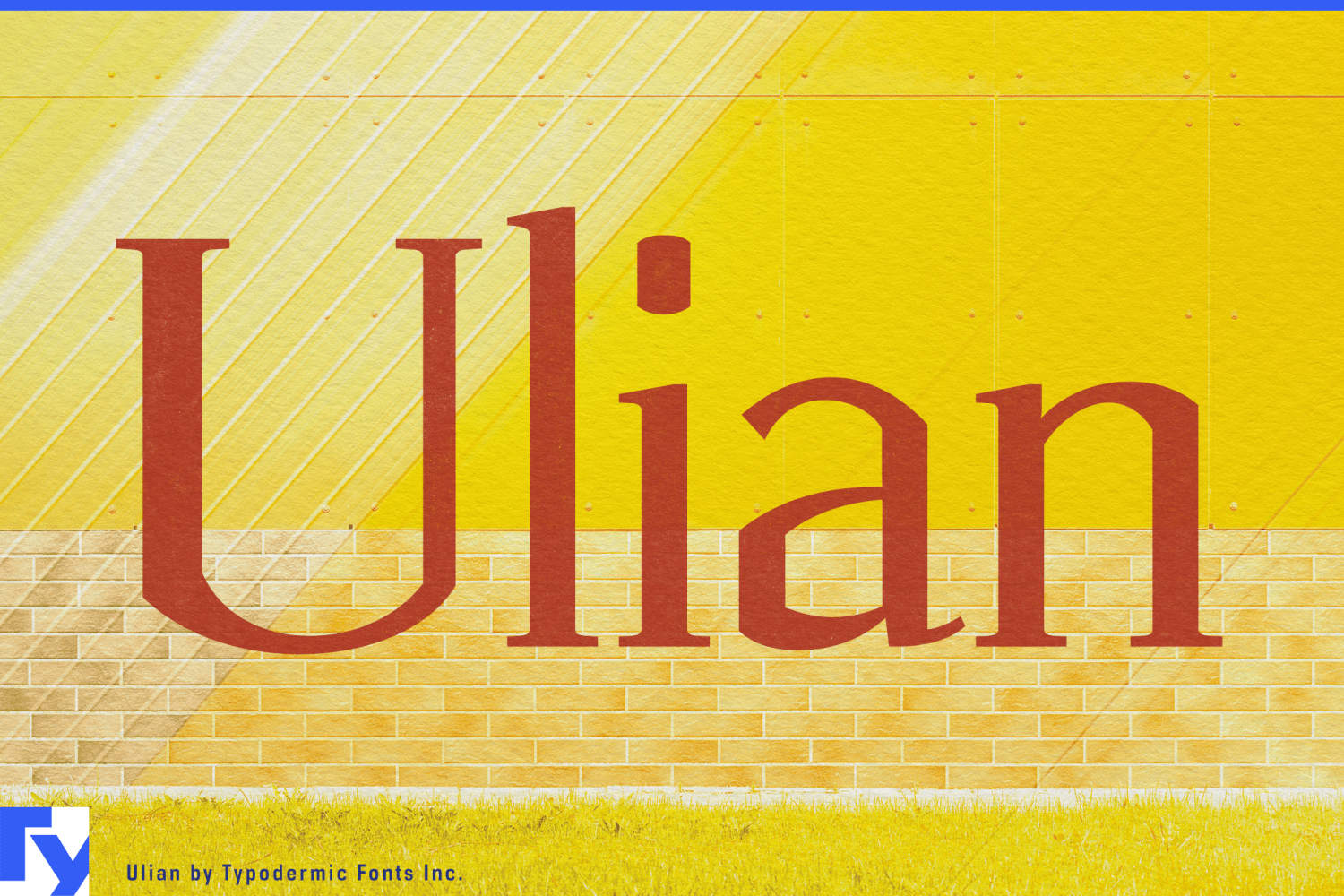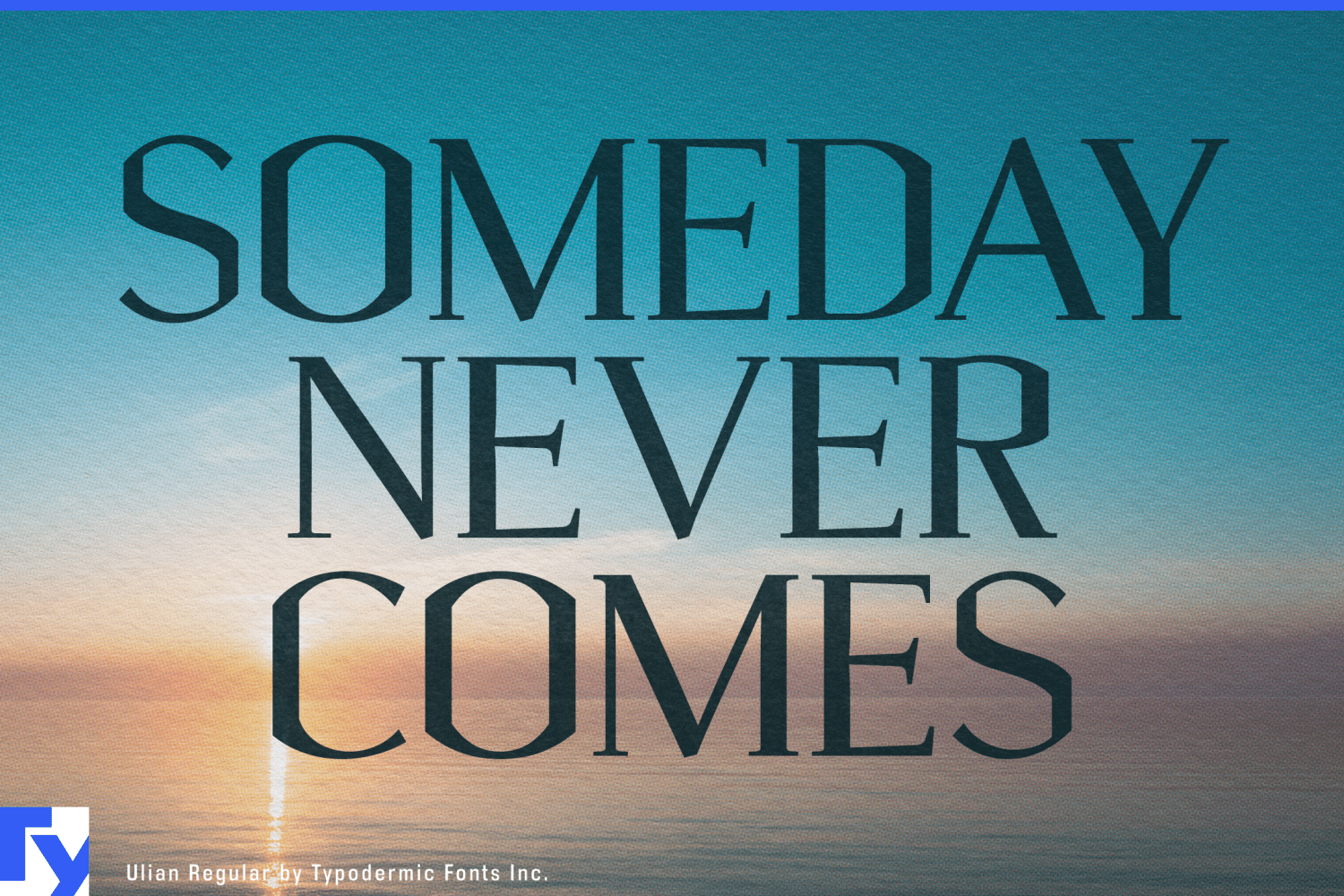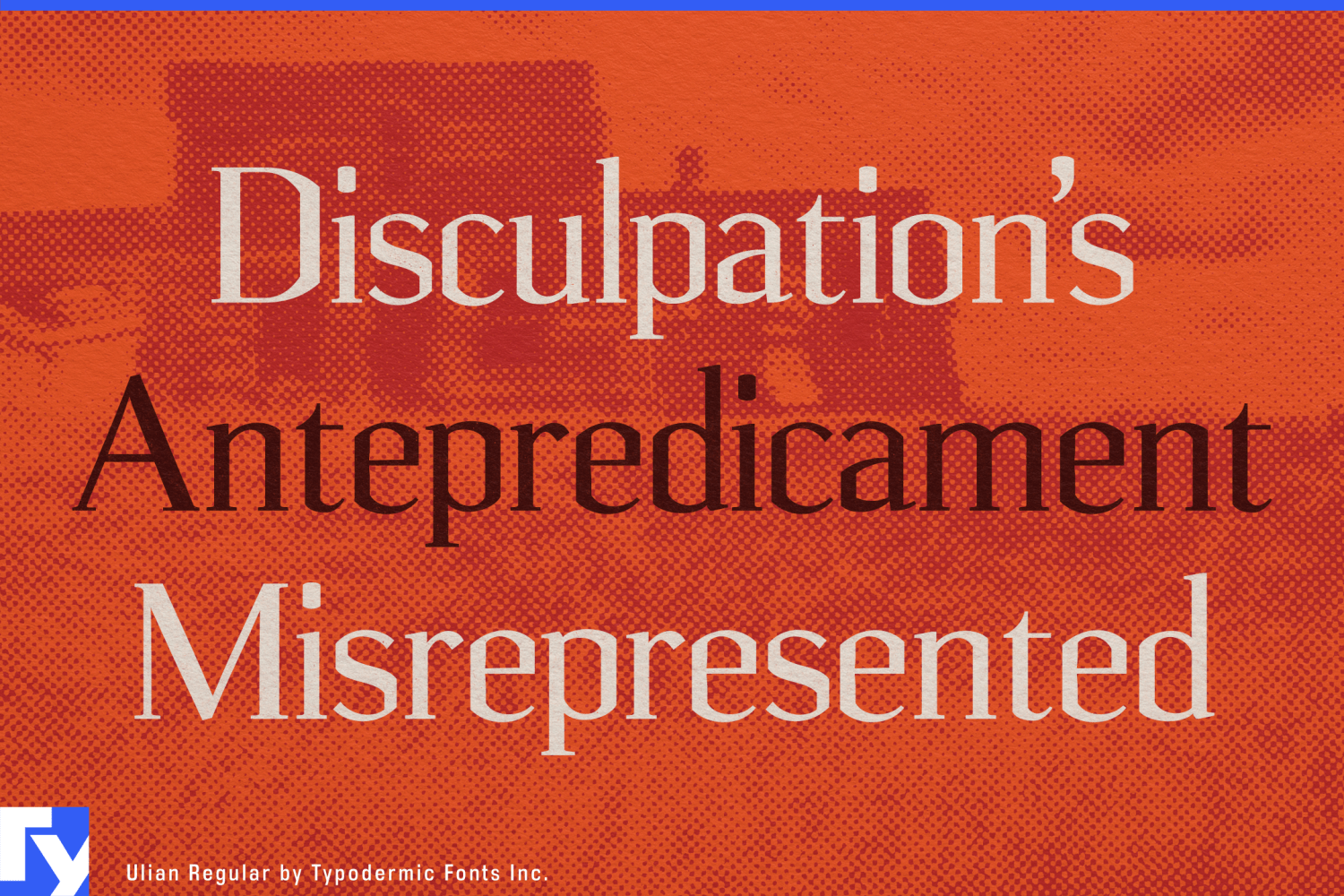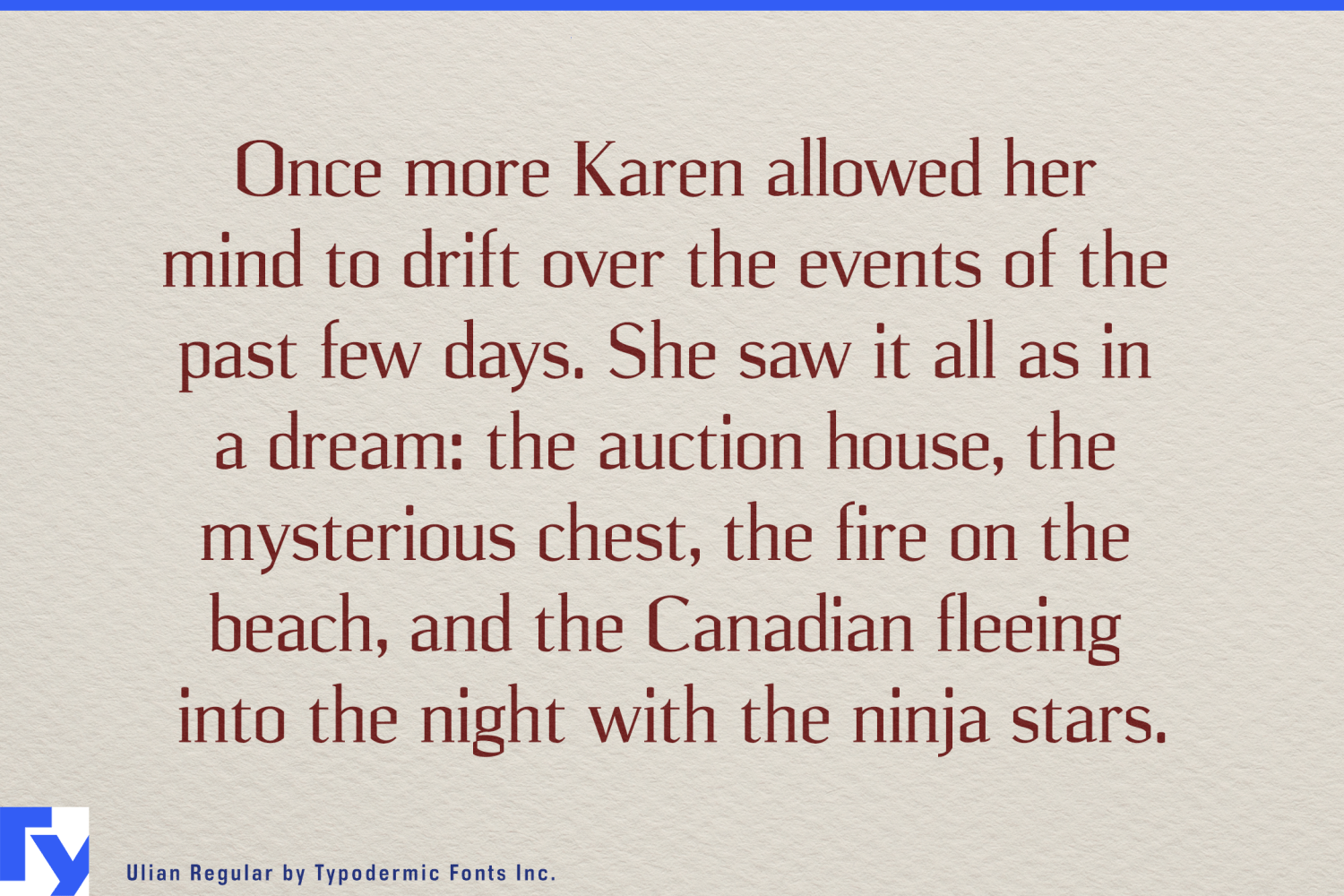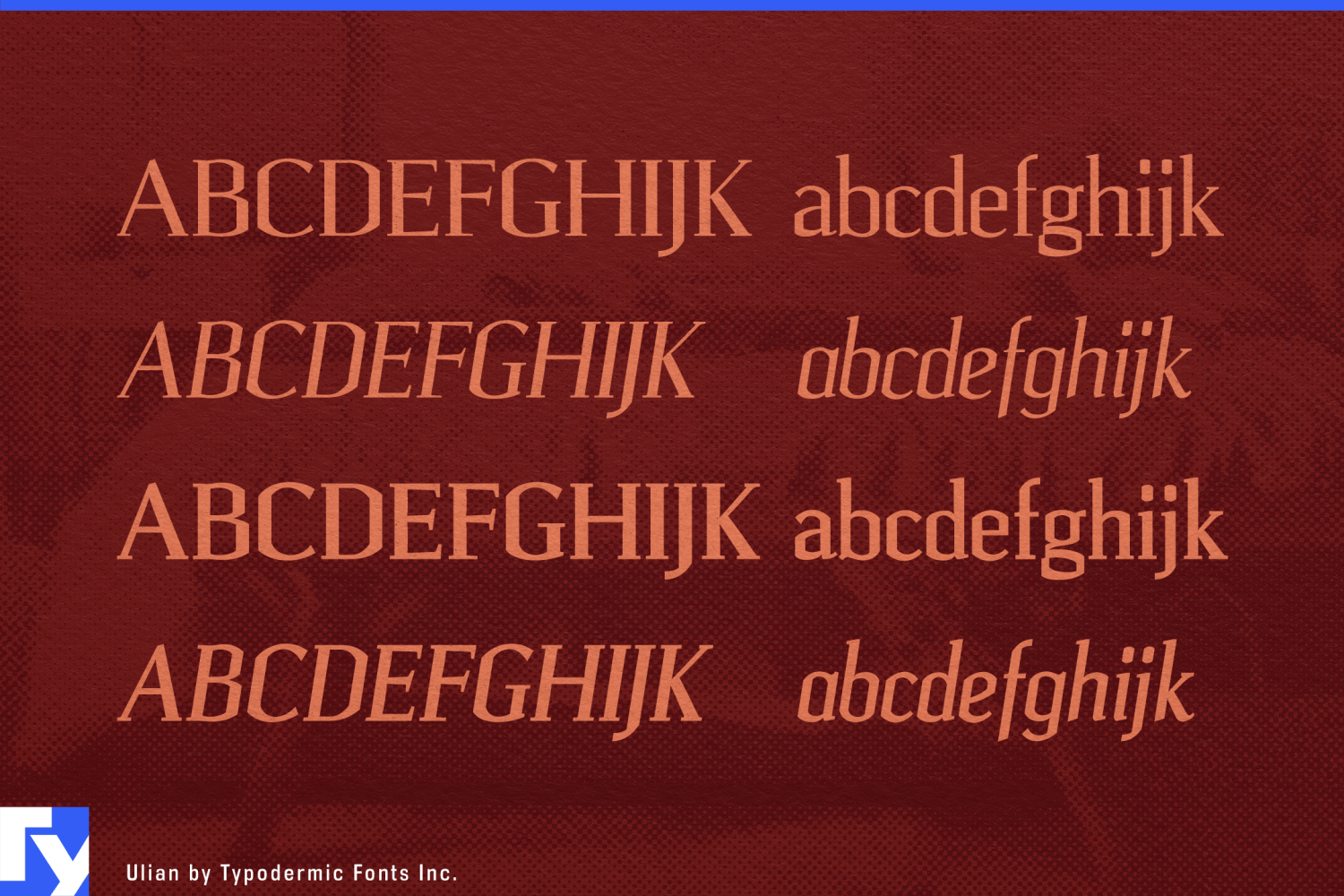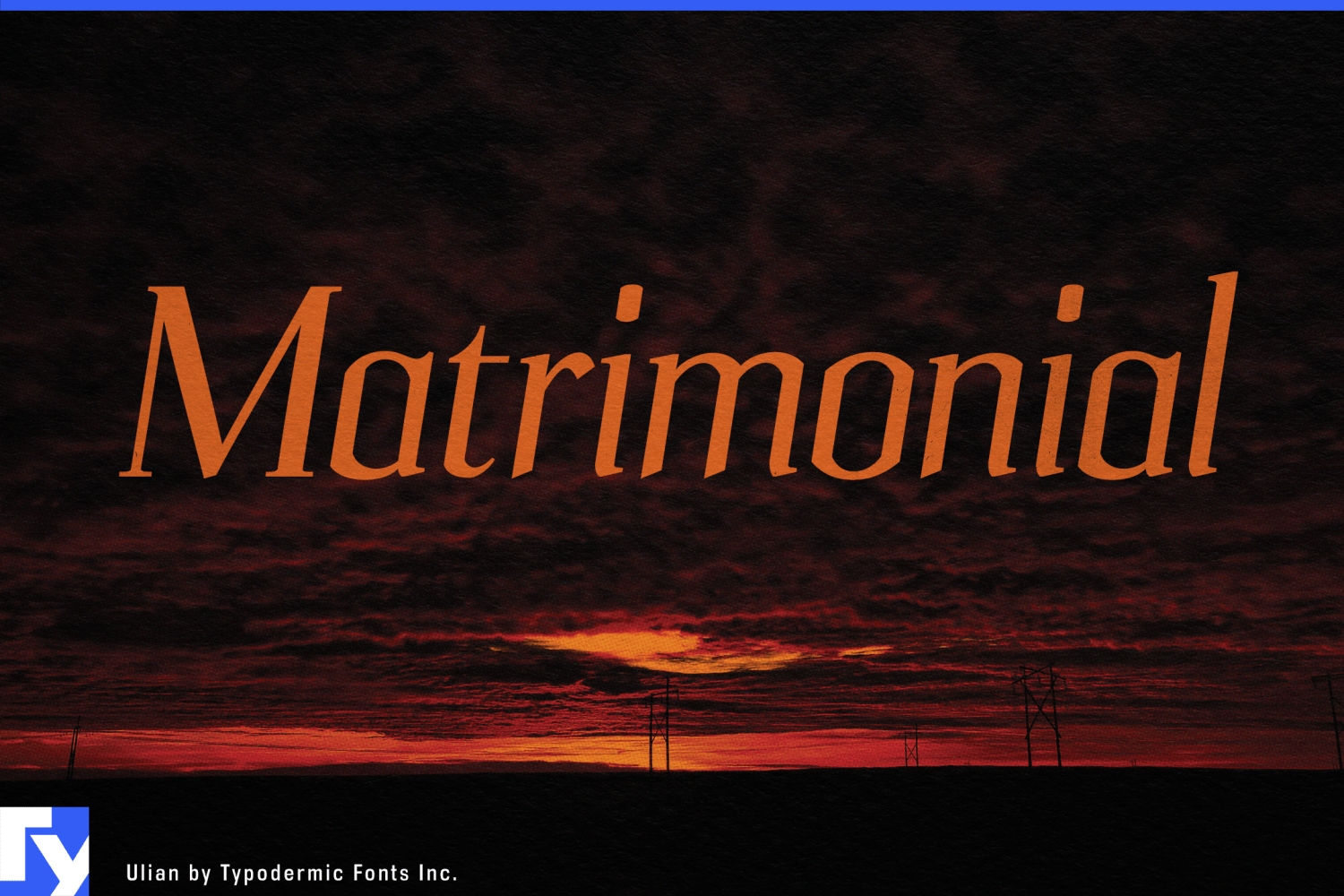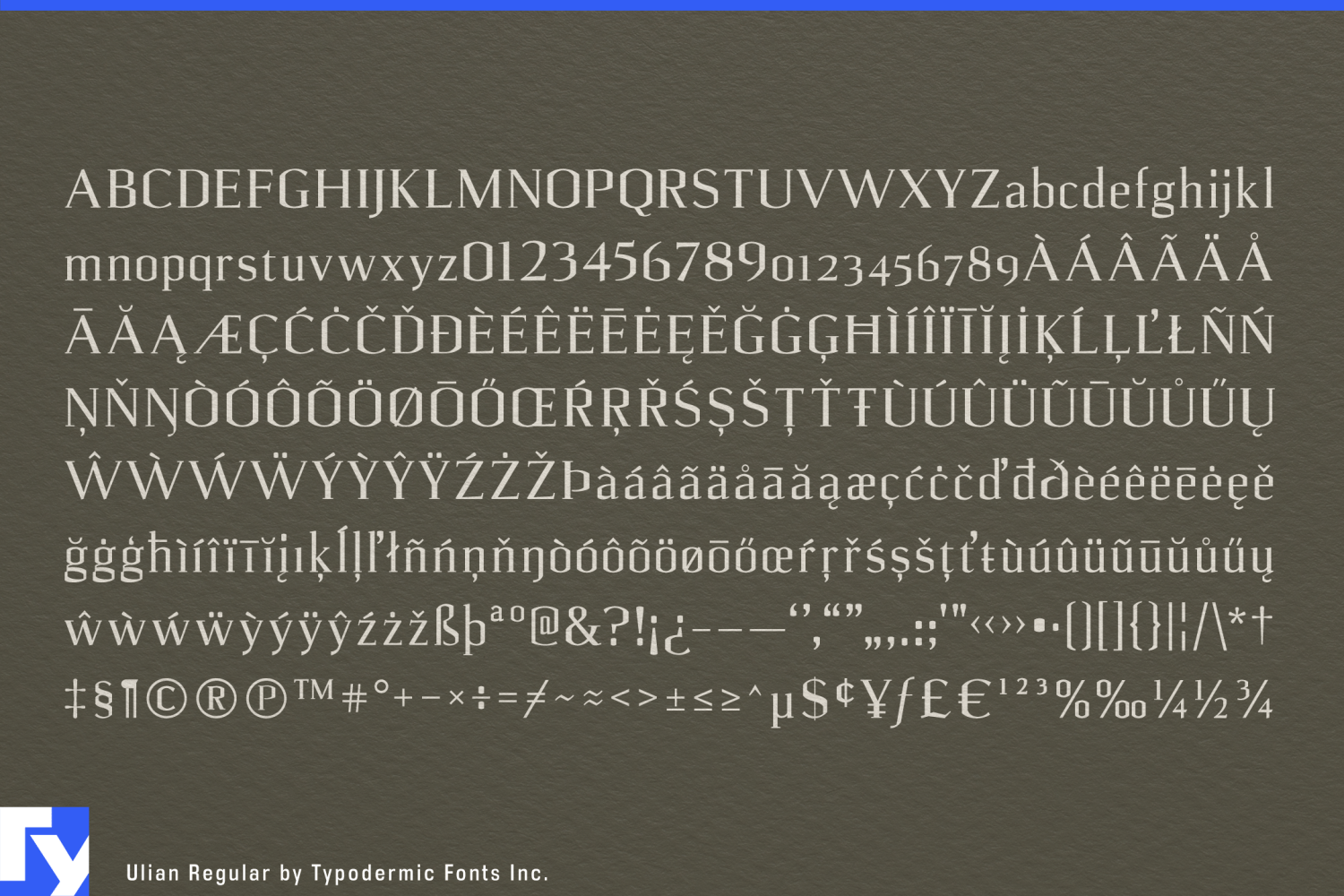
Ulian
Font Family by Typodermic
Luxury typography often arrives carrying its own history. High-contrast serifs can suggest fashion houses, old wine estates and inherited prestige before the brand has said anything for itself. Ulian keeps the ceremony of a serif while changing the architecture underneath, giving new luxury products a formal voice without making them pretend to have existed for a century.
Its letterforms combine curved serifs and stroke modulation with unusually flat vertical sides. Those compressed, almost architectural forms make the upright styles feel composed and engineered rather than nostalgic, while the italics provide a more fluid counterpoint. Regular, Italic, Bold and Bold Italic give the family range for product names, collection titles, campaign headlines and short supporting display copy.
Prestige cosmetics and advanced skincare are especially well suited to that tension. Serum bottles, treatment concentrates, eye-care products, fragrance boxes and coordinated skincare ranges need typography that feels refined on carefully controlled surfaces without disappearing into familiar luxury conventions. Ulian’s narrow proportions work naturally on tall cartons and slim bottles, while its squared construction gives collection names and treatment titles a recognizable shape of their own.
Contemporary wine offers another strong setting. Architecturally designed estates, limited cuvées, single-vineyard releases and premium sparkling wines can use the authority of serif typography without rustic nostalgia or faux-engraved history. Estate names, vineyards, regions and vintages can share one restrained display vocabulary while the overall impression remains distinctly modern.
Botanical aperitifs, zero-proof spirit alternatives, sparkling teas and sophisticated alcohol-free dinner drinks present a newer version of the same problem. They need to feel adult and occasion-worthy without simply imitating conventional spirits packaging. Ulian brings formality to bottle names, botanical varieties and flavor descriptions while its harder geometry keeps the identity from feeling borrowed.
Lab-grown jewelry and cultured gemstones push the idea further. These products combine technological origins with expectations of rarity, ceremony and permanence. Collection names, stone cuts, presentation boxes, retail displays and campaign headlines can feel luxurious without concealing the engineered premise of the product.
Private longevity clubs, science-led wellness retreats and advanced diagnostic studios offer another future-facing use. Ulian can carry institute names, program titles, membership material and environmental display headings with enough structure to suggest precision and enough serif detail to preserve ceremony.
Ulian is built for premium categories moving forward rather than looking backward. It keeps the authority and ritual of serif typography while replacing some of its inherited softness with a tighter, more architectural structure.